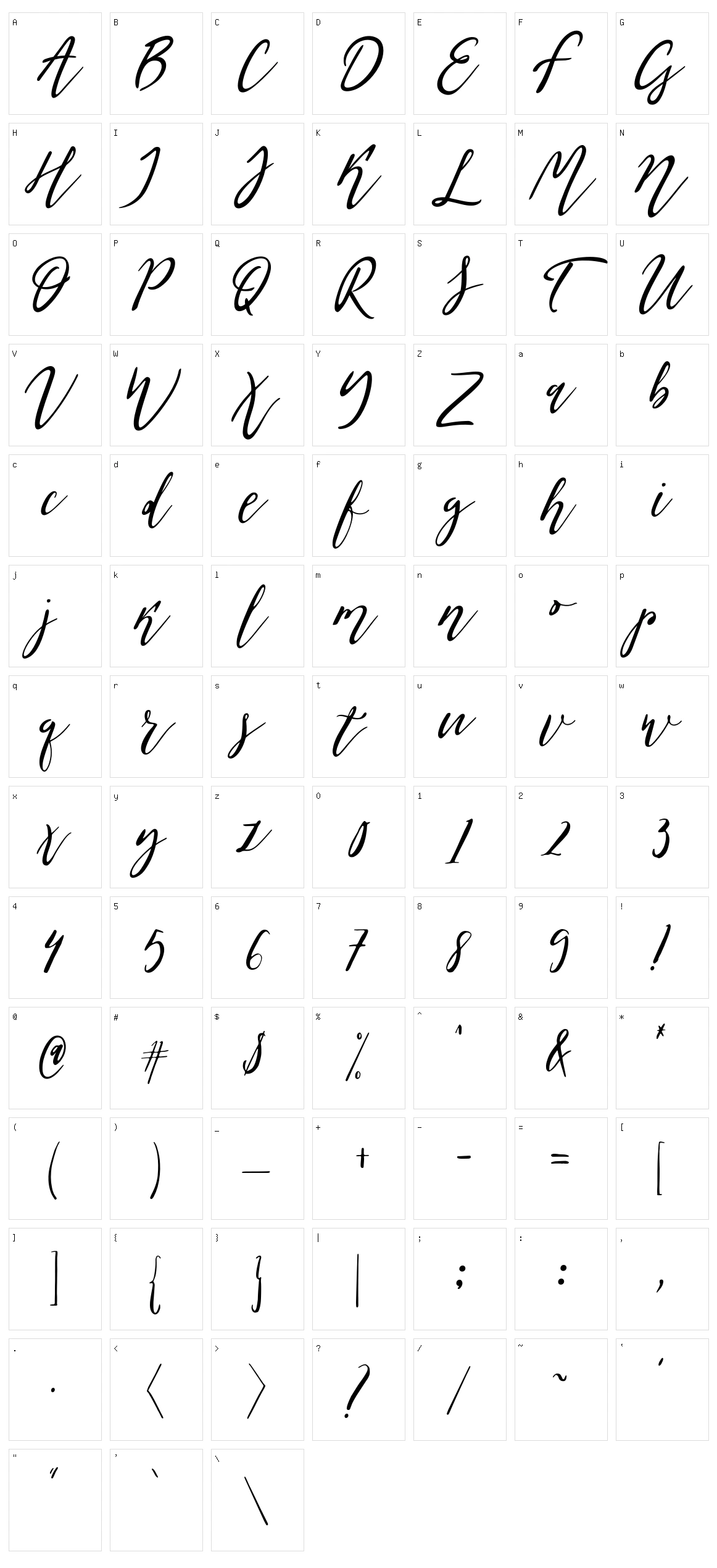
The free font Olis is carefully designed by brandbe, showcasing a thoughtful balance of creativity and usability and falls under the Script font style. When you download the ZIP file, it contains only 32.02 KB of font files, making it lightweight and quick to download. Please review the license details below to understand permitted usage and distribution rights. If license information is not available, we recommend using this font for personal projects only or contacting the author directly for commercial usage permissions.